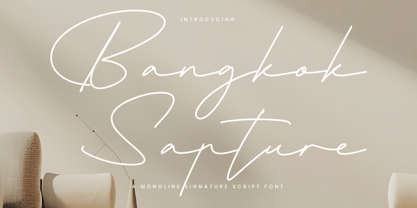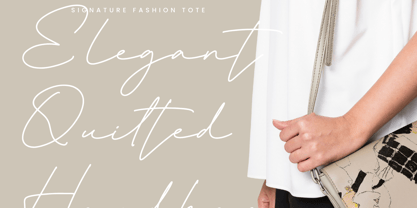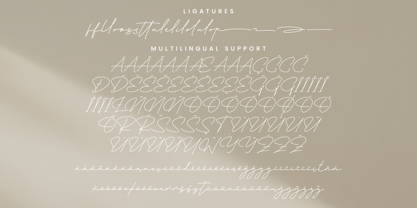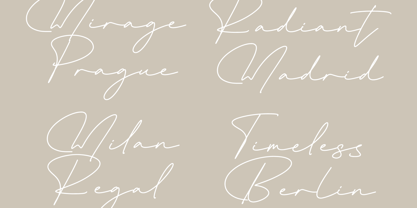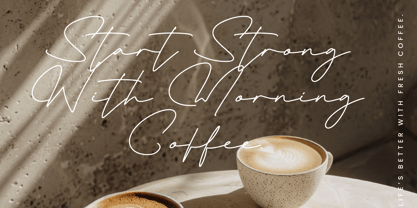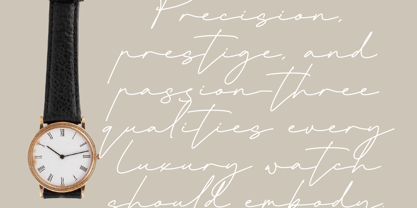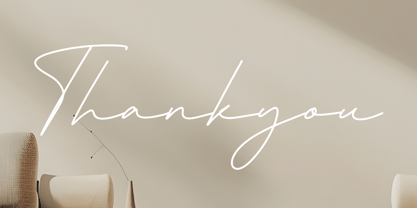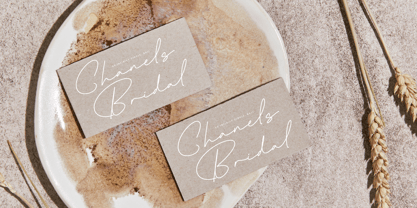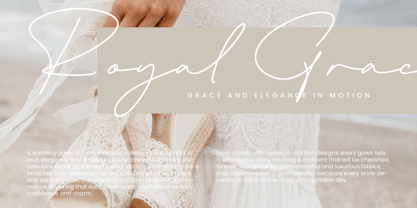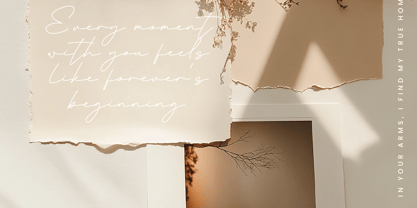
Bangkok Sapture
by Integritype
The Bangkok Sapture Font Family was designed by Dimas Alif Maulana and published by Integritype. Bangkok Sapture contains 2 styles and family package options. More about this family
Bangkok Sapture - A Monoline Signature Script Font, from Integritype Studio, perfect for any project like: logos, branding projects, homewares designs, product packaging, mugs, quotes, posters, shopping bags, t-shirts, covers books, business cards, invitation cards, greeting cards, labels, photography, watermarks, special events and all your other luxury projects that require a premium taste.
Designers: Dimas Alif Maulana
Foundry: Integritype